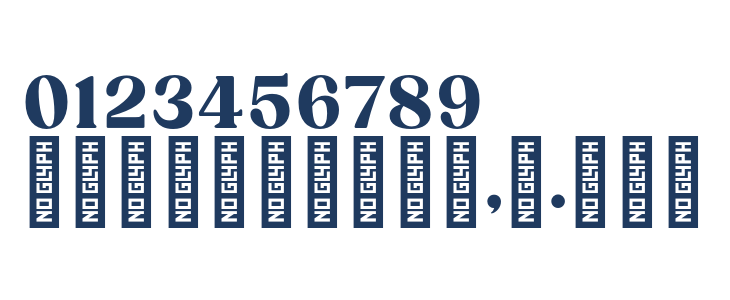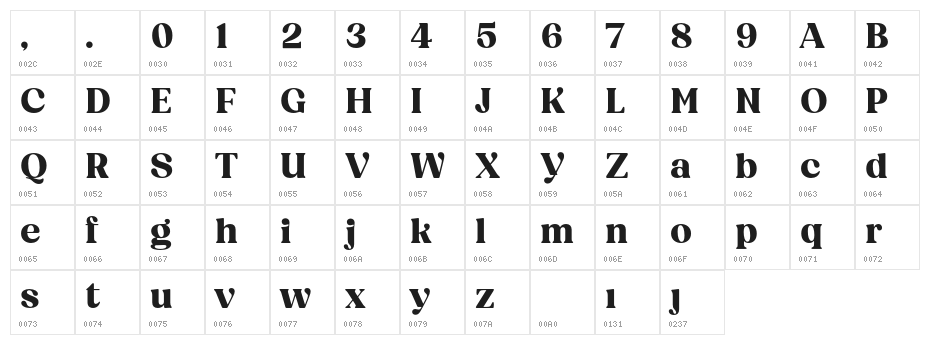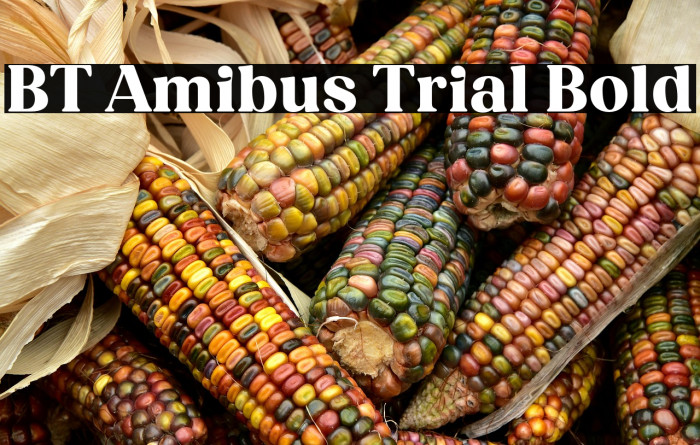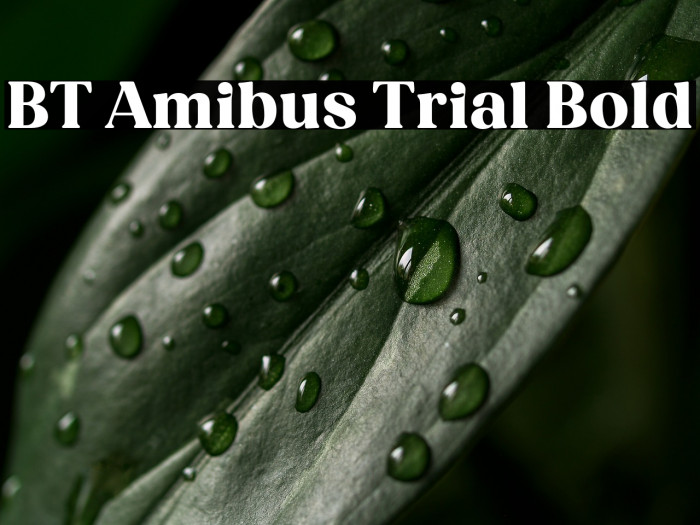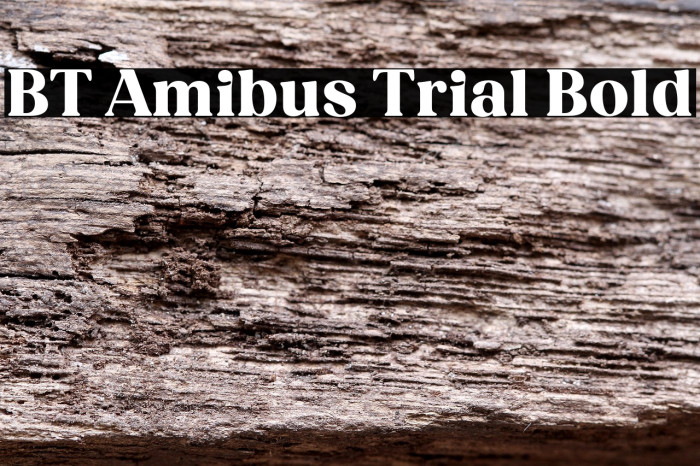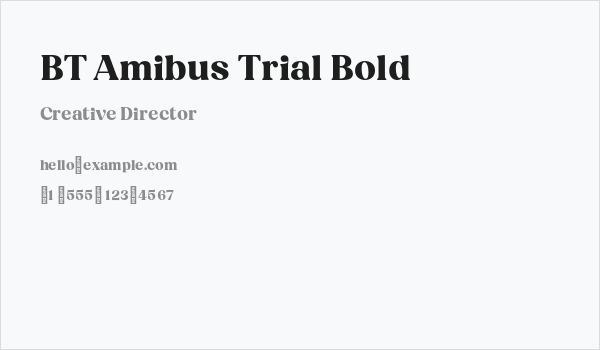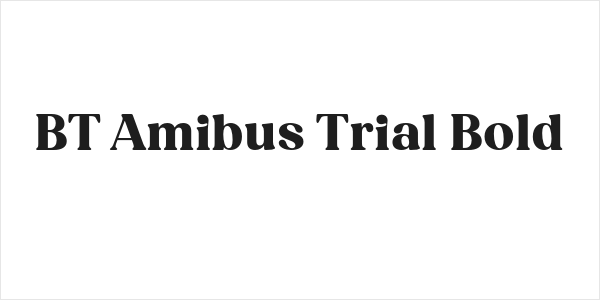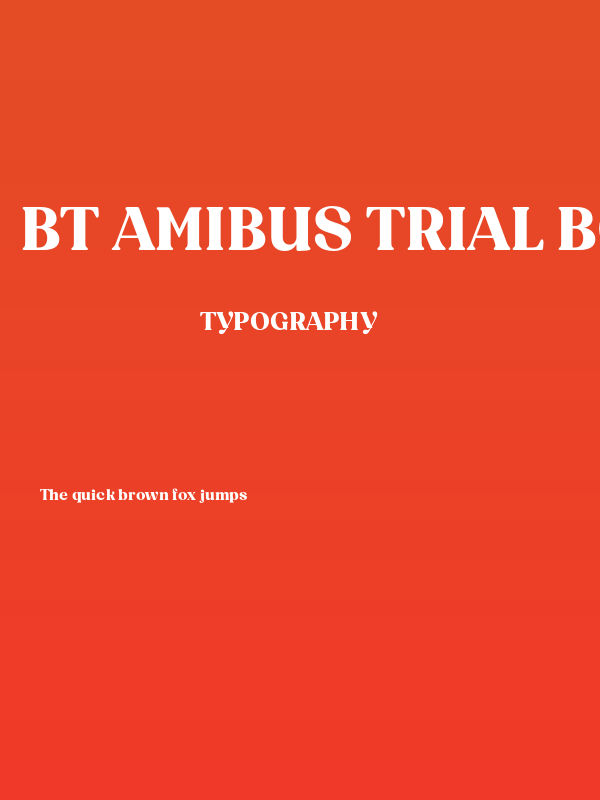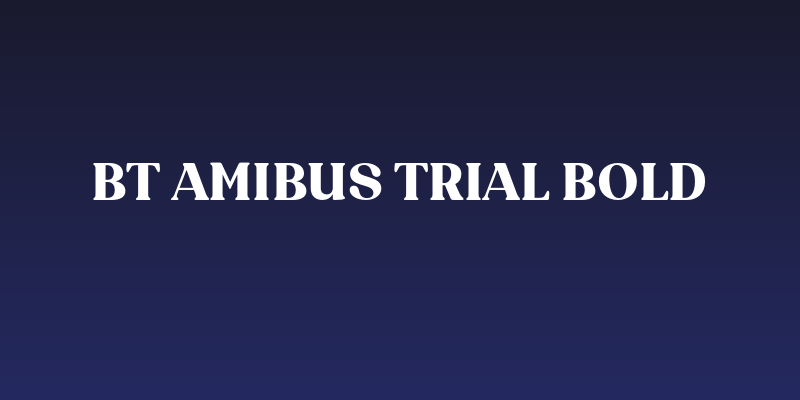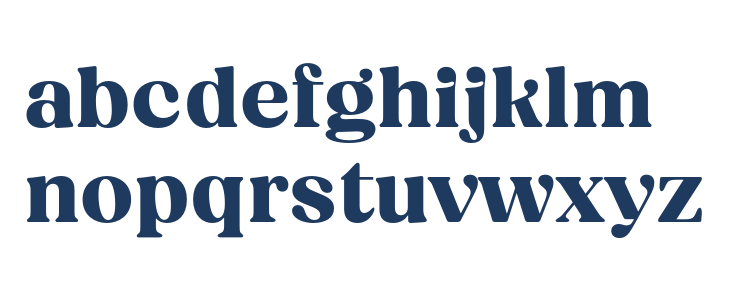
BT Amibus Trial Bold Font
BT Amibus Trial Bold Description
This font exhibits a bold and commanding presence with its thick, strong strokes and pronounced serifs. The uppercase letters are robust and well-defined, while the lowercase characters maintain a consistent weight, providing a harmonious balance. The numerals are equally bold, ensuring clarity and readability. The overall design is reminiscent of traditional serif fonts, yet it carries a modern twist with its clean lines and structured form. The spacing between characters is tight, enhancing its bold appearance and making it suitable for impactful headlines or titles.
| Proposed Projects | This font is perfect for projects that require a strong visual impact, such as magazine covers, posters, branding materials, and advertising campaigns. |